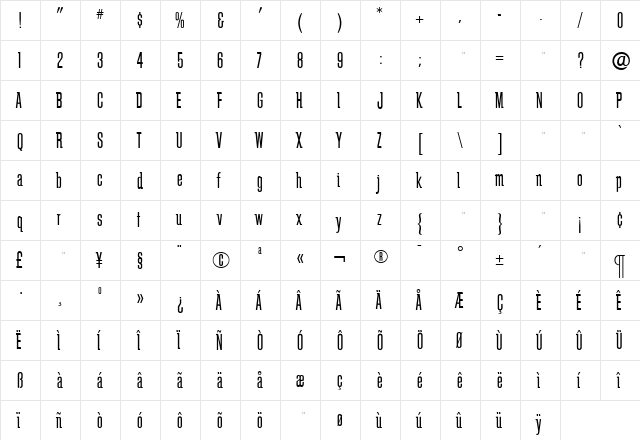
SchindlerBook Roman
Design Context for SchindlerBook Typeface
SchindlerBook offers clean, dependable letterforms without strong stylistic allegiance, making it a practical choice for designers who need flexibility.